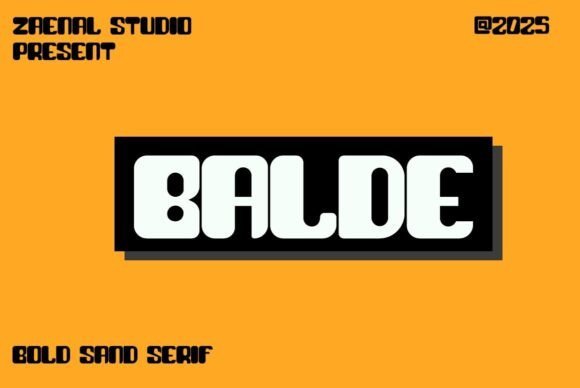
Balde Font is a bold and assertive sans serif font designed to elevate any creation, regardless of its topic or theme. Whether you’re working on a brochure, a website, or a logo, this versatile font is sure to make a lasting impression. With its striking aesthetic and wide range of applications, the Balde Font is an invaluable asset to any designer’s library.
Key Features of Balde Font
- Font Family: Balde is a sans-serif font family, designed to provide a clean and modern look.
- Unique Characteristics: Balde features a unique blend of modern and classic elements, with a distinctive x-height and a range of subtle flair and terminals.
Review of Balde Font
At first glance, I was excited to dive into the Balde font and see what it had to offer. ✨ The first thing that caught my eye was the elegant, modern feel that it brings to any design. The font’s clean lines and simple shape make it perfect for use in logos, headings, and body text. I particularly loved the way it worked well in digital formats, such as on websites and mobile apps.
- ✨ Elegant and modern feel that adds sophistication to any design
- ✨ Works well in digital formats, making it perfect for websites and mobile apps
- ✨ Highly customizable, allowing designers to adjust the font to suit their needs
However, there are a few limitations that I noticed during my review. ⚠️ The font can sometimes feel a bit too plain, lacking a strong personality or unique character. Additionally, the font family is not as extensive as some other fonts, which may limit its use in certain projects.
Overall, I would say that the Balde font is a solid choice for designers who want a clean and modern font. While it may not be the most exciting or unique font, it gets the job done and works well in a variety of contexts. With some customization, I think it could really shine and become a go-to font for many designers.
For best results, pair Balde Font with clean and simple designs. Use it for headings and titles to create a bold and eye-catching effect. Experiment with different font sizes and styles to achieve the desired look.
Use Balde Font for:
– Headings and titles
– Advertising and marketing materials
– Digital products and services
– Any project that requires a bold and modern look.
Alternatives to Balde Font
Montserrat is a popular sans-serif font designed by Julieta Ulanovsky. It’s a great alternative to Balde Font for body text due to its clean and modern aesthetic. Montserrat is more versatile and can be used in a variety of contexts, from digital products to print materials. Compared to Balde Font, Montserrat has a more open and airy feel, making it suitable for long-form content.
Inter is a sans-serif font designed by Rasmus Andersson. It’s a highly legible font that’s similar to Balde Font in terms of its clean and minimalist aesthetic. Inter is a great choice for digital products, such as websites and mobile apps, due to its high x-height and open counters. Compared to Balde Font, Inter has a more neutral and timeless feel, making it suitable for a wide range of applications.
Lato is a sans-serif font designed by Łukasz Dziedzic. It’s a versatile font that’s suitable for both body text and headings. Lato has a more rounded and friendly feel compared to Balde Font, making it a great choice for branding and marketing materials. Compared to Balde Font, Lato has a more approachable and humanistic feel, making it suitable for a wide range of applications.
Open Sans is a sans-serif font designed by Steve Matteson. It’s a highly legible font that’s similar to Balde Font in terms of its clean and minimalist aesthetic. Open Sans is a great choice for digital products, such as websites and mobile apps, due to its high x-height and open counters. Compared to Balde Font, Open Sans has a more neutral and